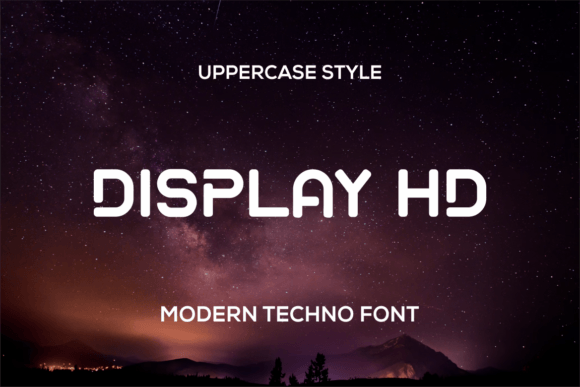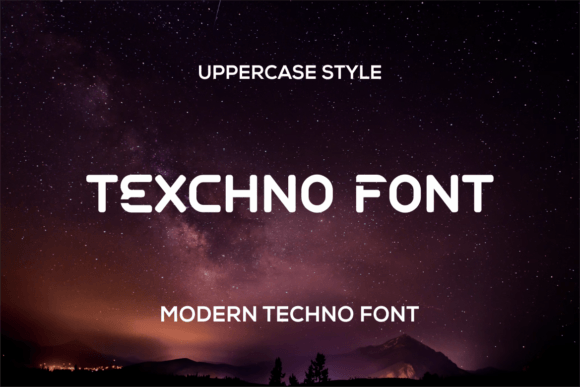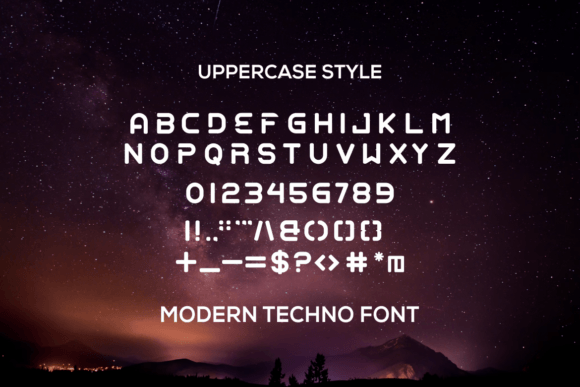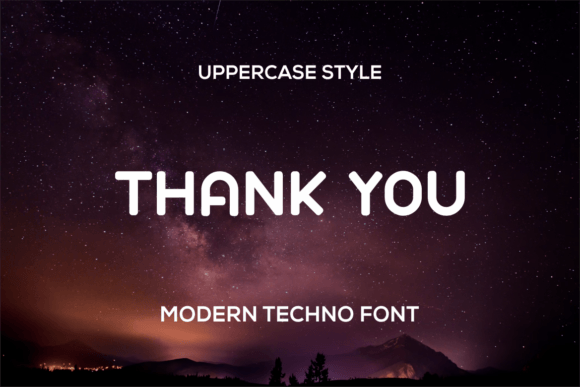
Introduction to Dafaris Font
Dafaris is a modern, trendy sans-serif font that embodies contemporary style and versatility.
With its clean lines and sleek design, it’s perfect for cutting-edge branding, minimalist web design, and fashionable editorial layouts Elevate your projects with the chic and refined elegance of Dafaris.